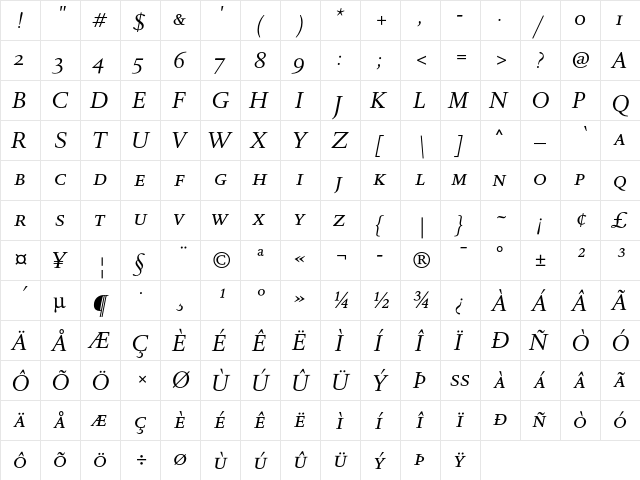
DTL Romulus T Caps Italic Font Preview
DTL Romulus T Caps Italic
Design Context for DTL Romulus Typeface
DTL Romulus offers clean, dependable letterforms without strong stylistic allegiance, making it a practical choice for designers who need flexibility. The dynamic lean of this cut emphasises speed and emphasis in any layout.
Pro Tip: Try DTL Romulus for annotation and caption copy alongside an upright companion — the contrast in angle creates a dynamic but ordered typographic system.